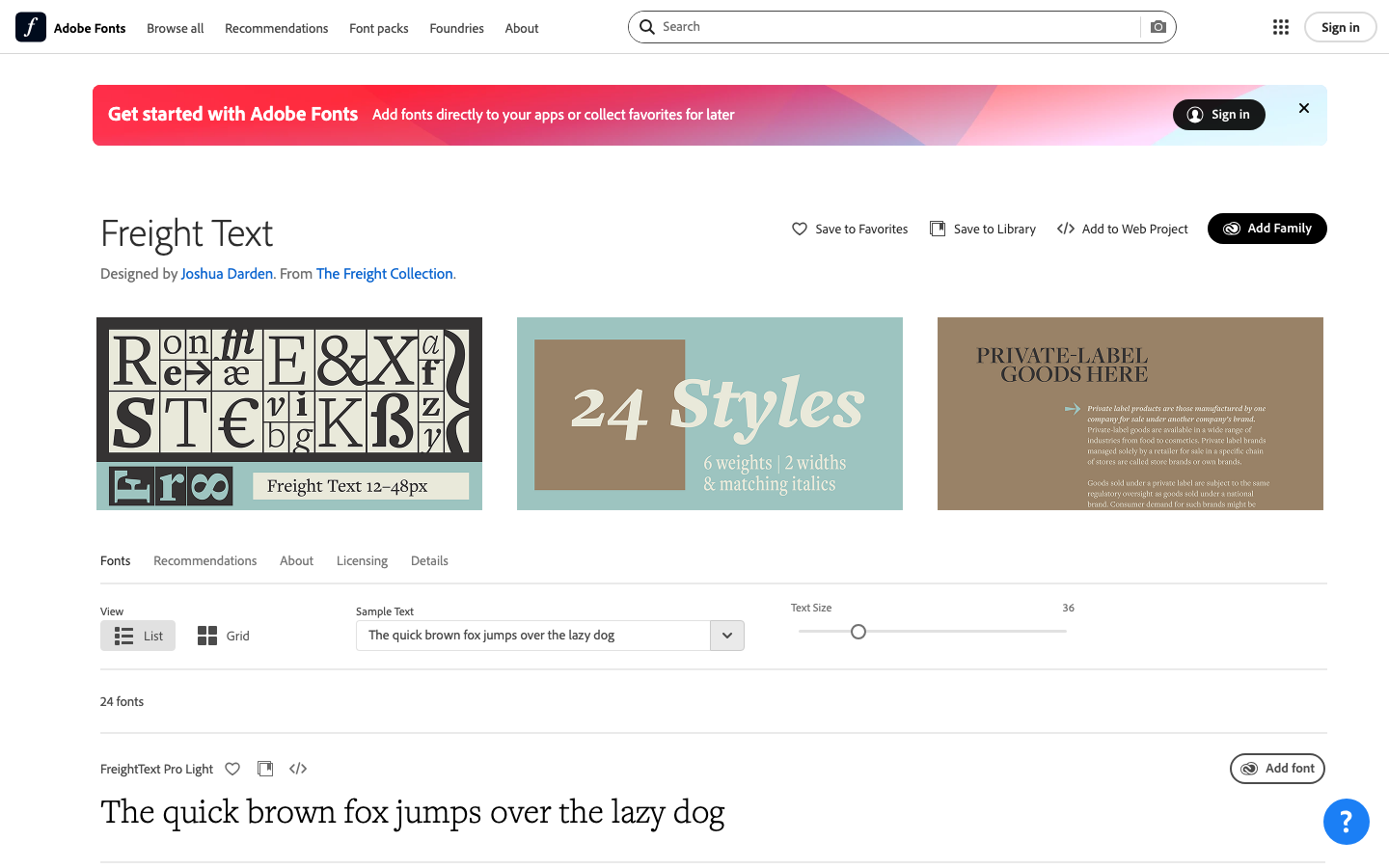
Freight Text vs GT Sectra
Freight Text and GT Sectra are both serif typefaces sharing a modern foundation. Compare which suits your Editorial project.
Design overlap:50%
Freight Text
GT Sectra
Freight Text
GT Sectra
| Feature | Freight Text | GT Sectra |
Typography for magazine design, periodicals, and print publications. Magazine fo...
Typography for print and digital publishing, book design, and editorial producti...
Recommended: Freight Text
- warm, readable design character
- Suited for Web
Consider: GT Sectra
- Suited for Tech and Publishing